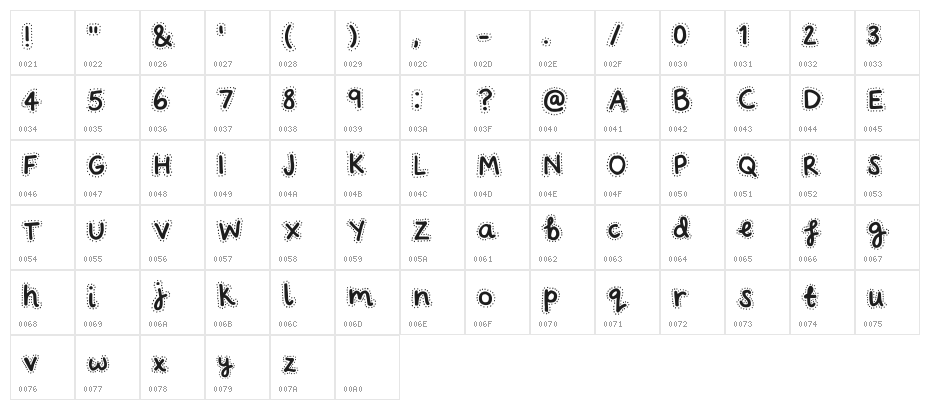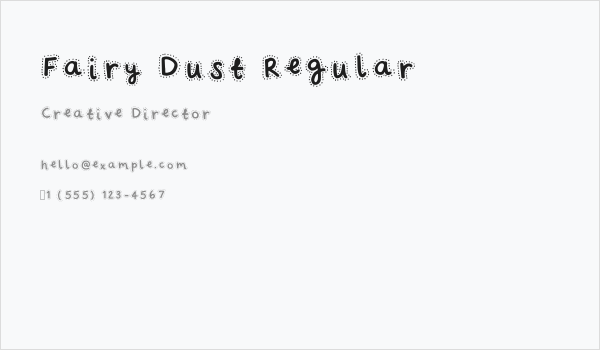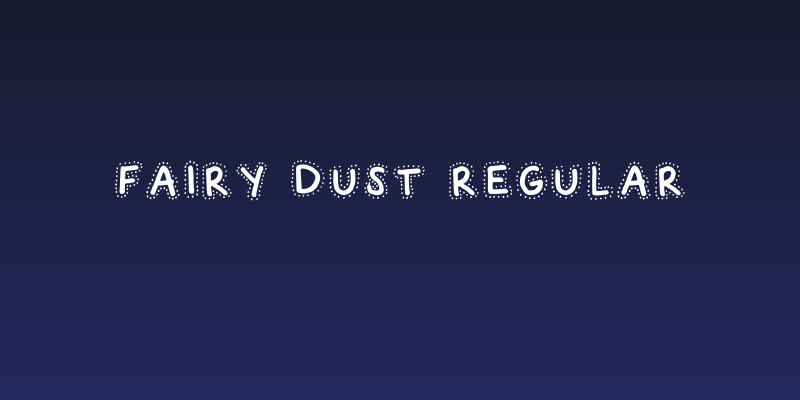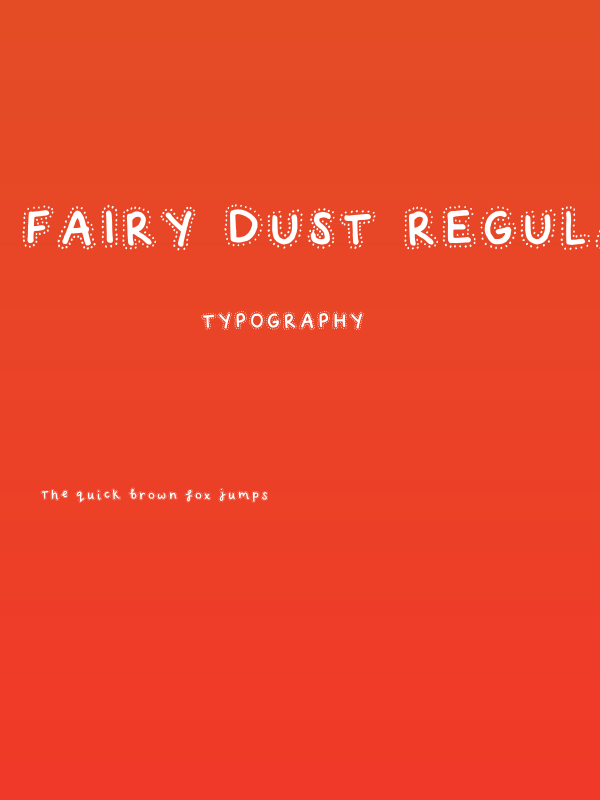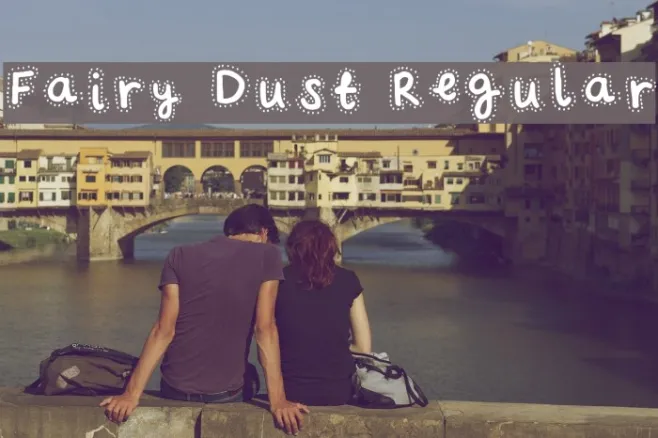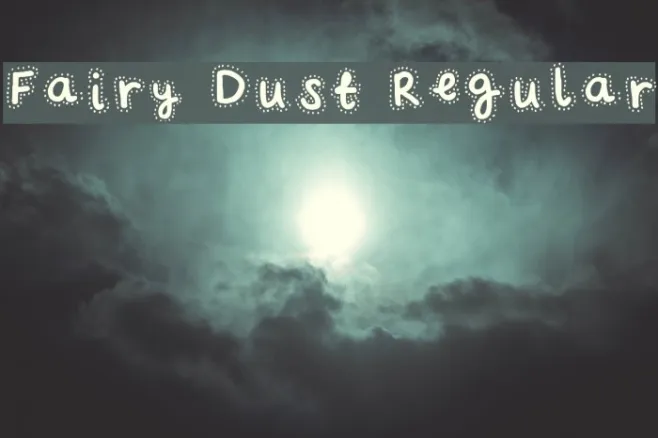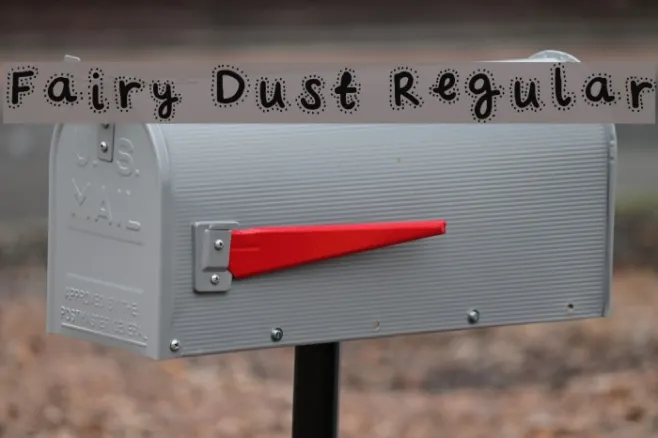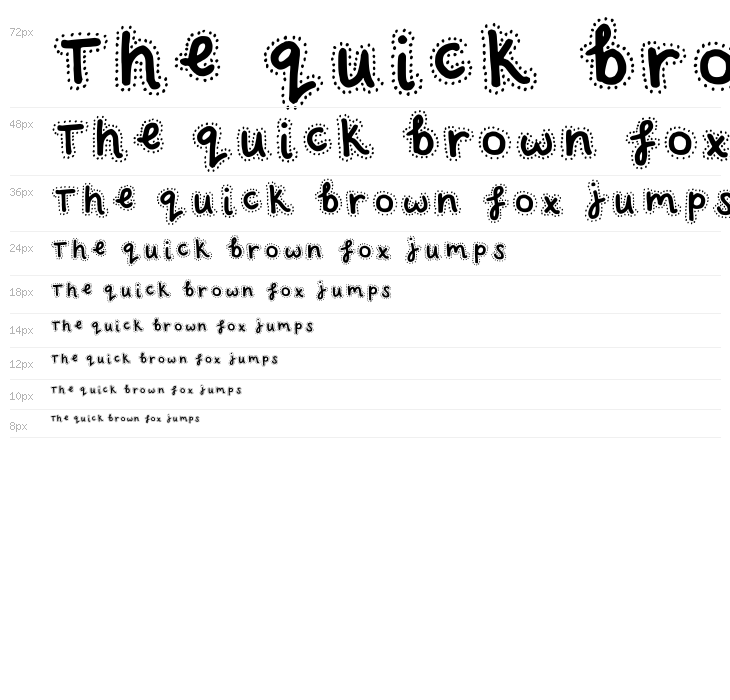
Fairy Dust Regular Font
Fairy Dust Regular Description
This whimsical and playful font features a dotted outline surrounding each character, giving it a magical and enchanting appearance. The letters are rounded and slightly irregular, adding to the hand-drawn, fairy-tale aesthetic. The uppercase and lowercase letters maintain a consistent style, with a friendly and approachable feel. Numbers and special characters are included, each with the same dotted embellishment, ensuring a cohesive look across all text elements. This font is perfect for projects that require a touch of fantasy and creativity.
| Proposed Projects | Ideal for children's books, fantasy-themed invitations, playful branding, and creative posters. |